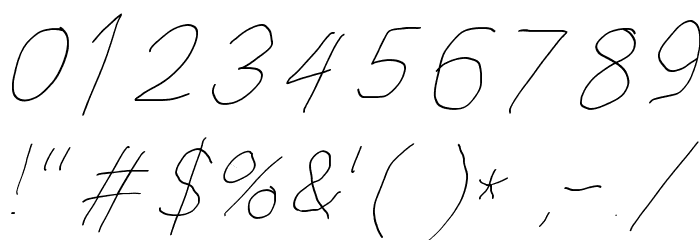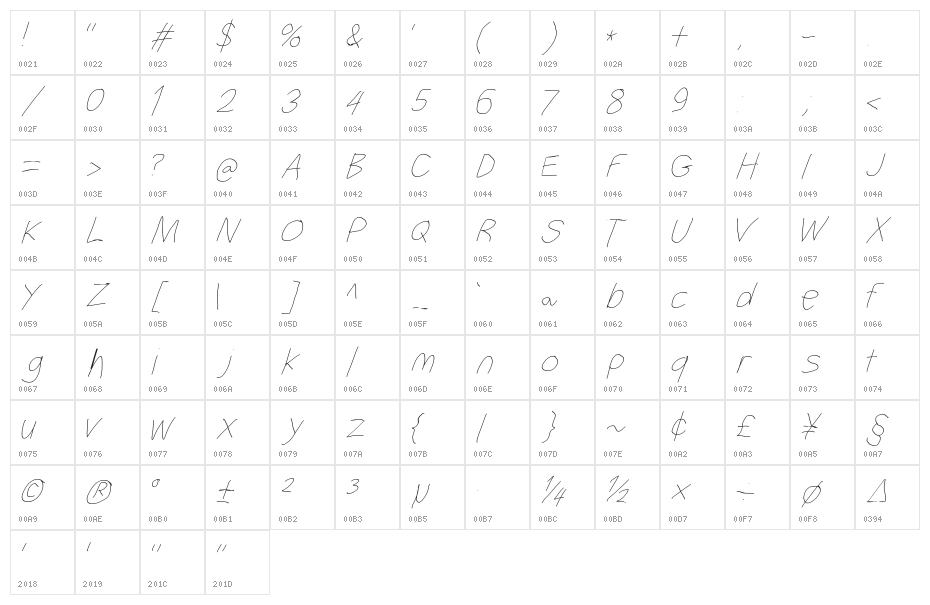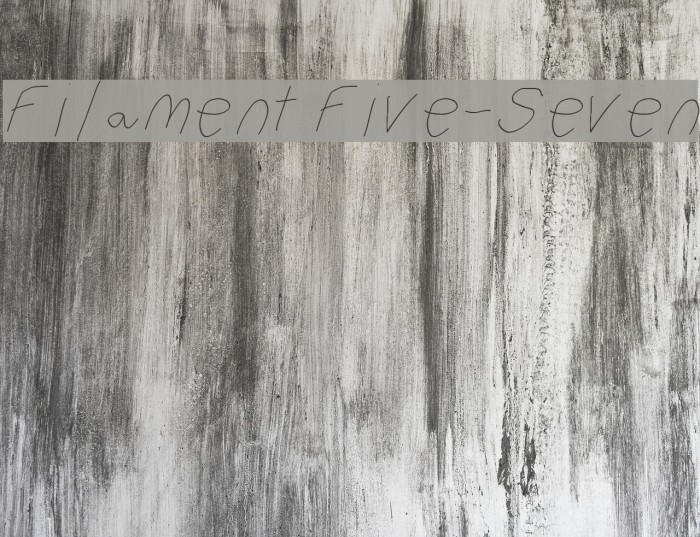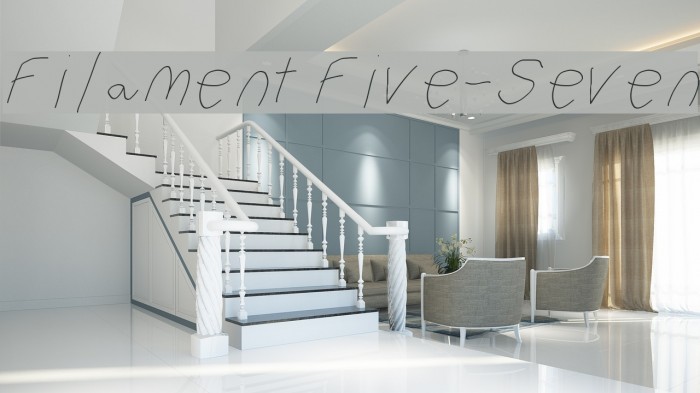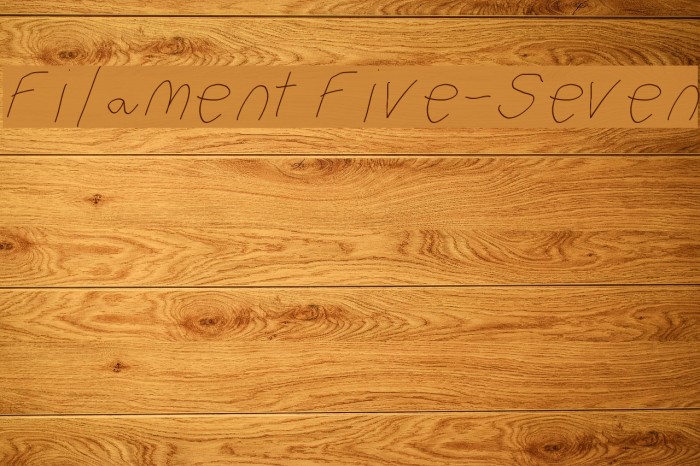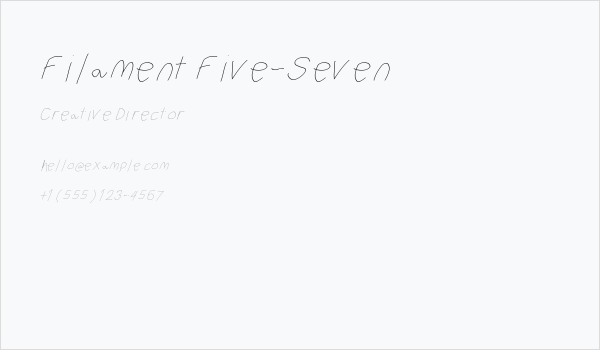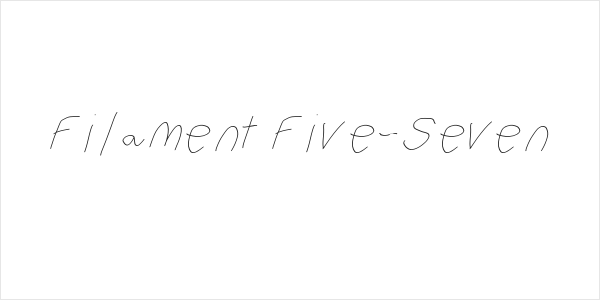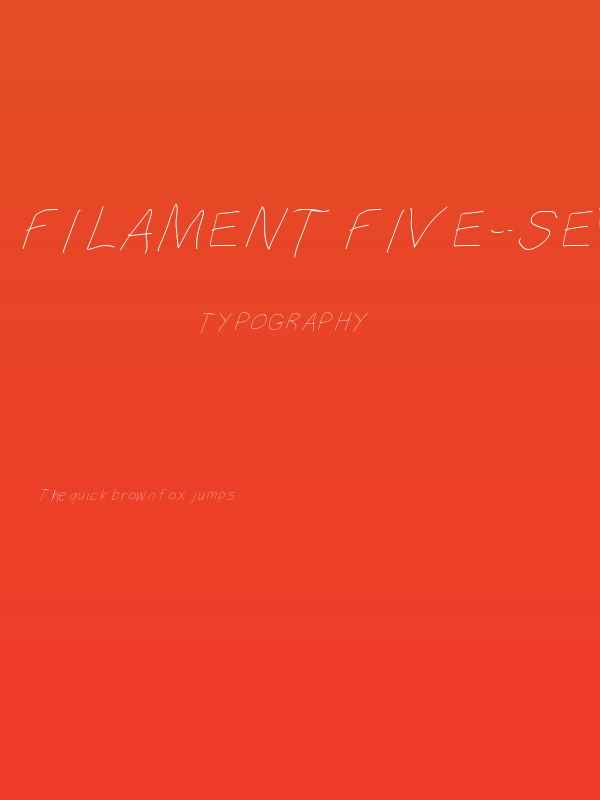
Filament Five-Seven Font
Filament Five-Seven Description
This font features a handwritten style with a casual and informal appearance. The letters are slightly slanted, giving it a dynamic and fluid feel. The strokes are thin and consistent, with a slight variation that adds a personal touch. The uppercase and lowercase letters maintain a cohesive look, while the numerals and special characters are clearly legible and match the overall aesthetic. This font is ideal for projects that require a personal, approachable, and friendly tone.
| Use Case | Headlines, Informal text, Personal projects |
| Proposed Projects | Ideal for personal notes, invitations, greeting cards, and informal branding. |